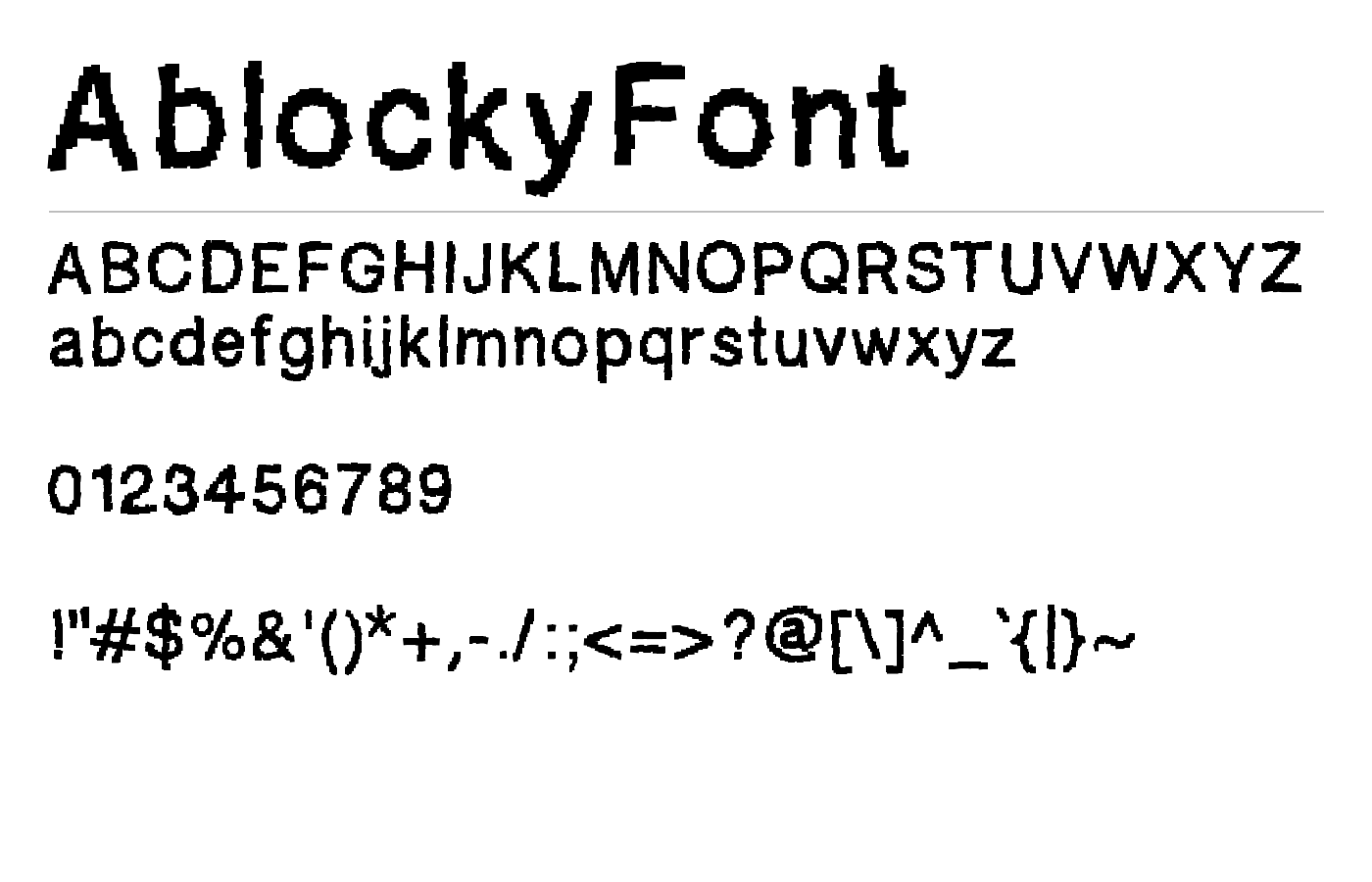
AblockyFont is a quirky, playful sans serif typeface featuring uneven, blocky strokes that give it a hand-crafted, textured look. Its rough edges and irregular shapes create a casual, informal vibe that works well for fun branding, creative projects, and eye-catching headlines. This font adds personality and charm where a friendly, approachable style is desired.
AblockyFont
About AblockyFont